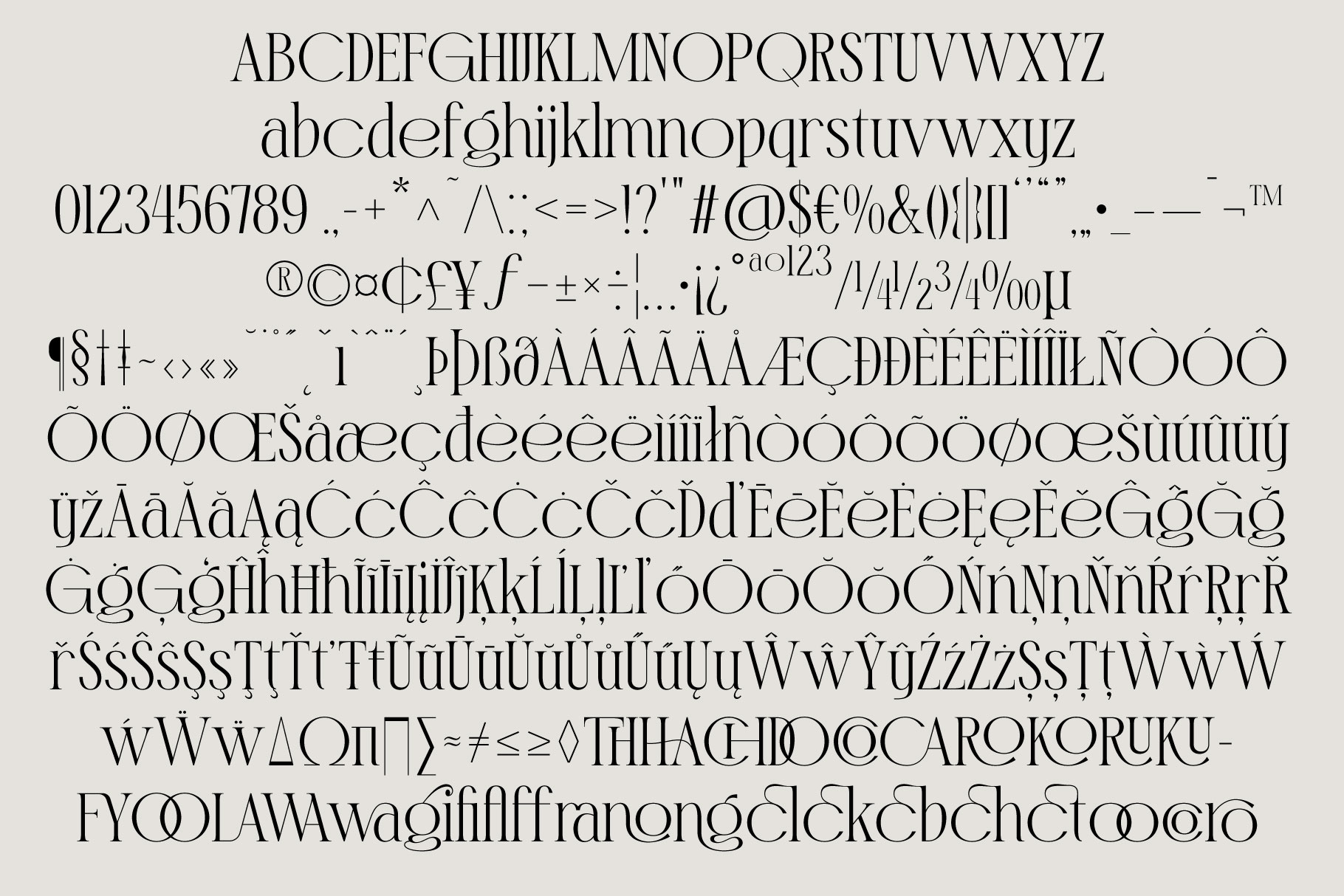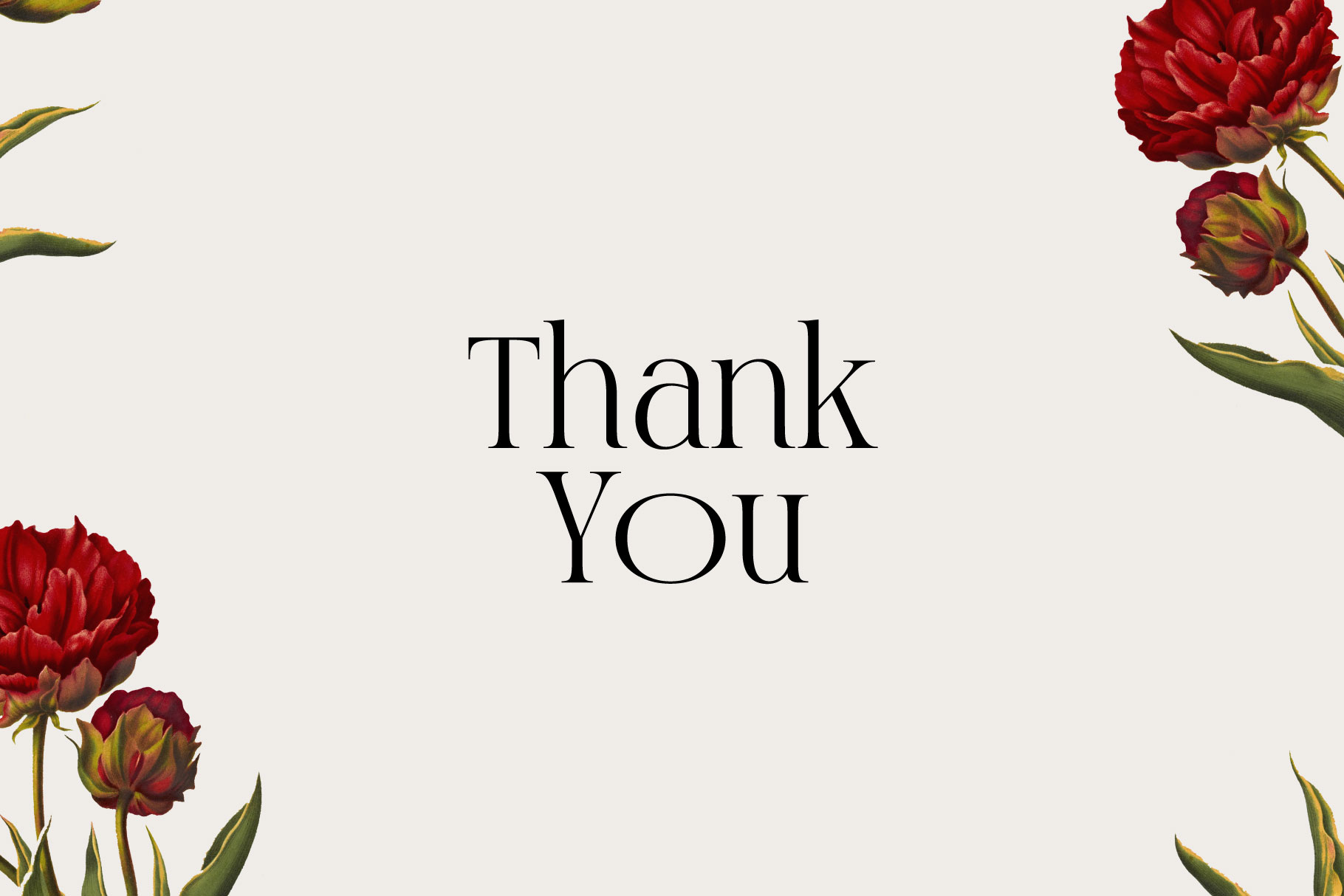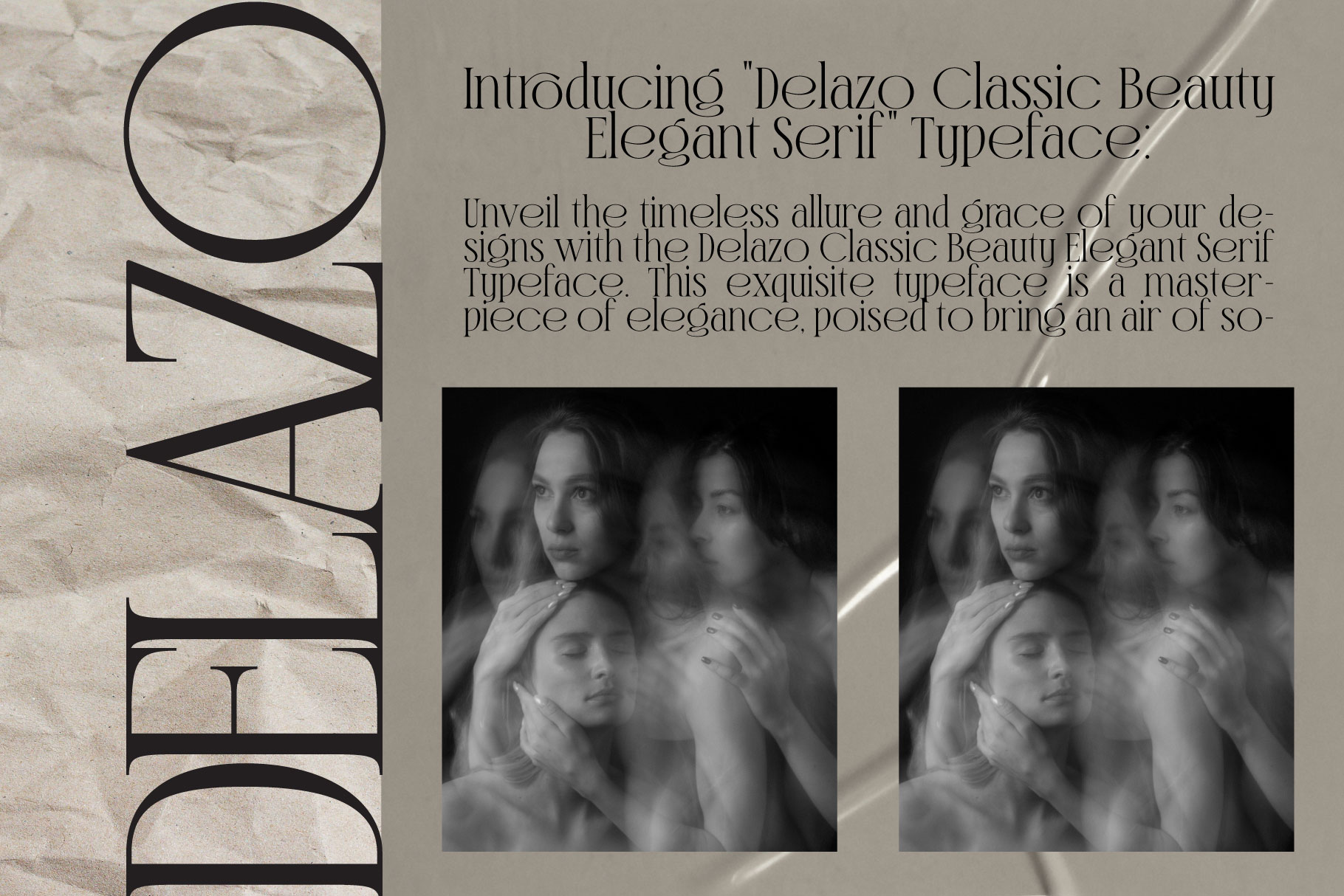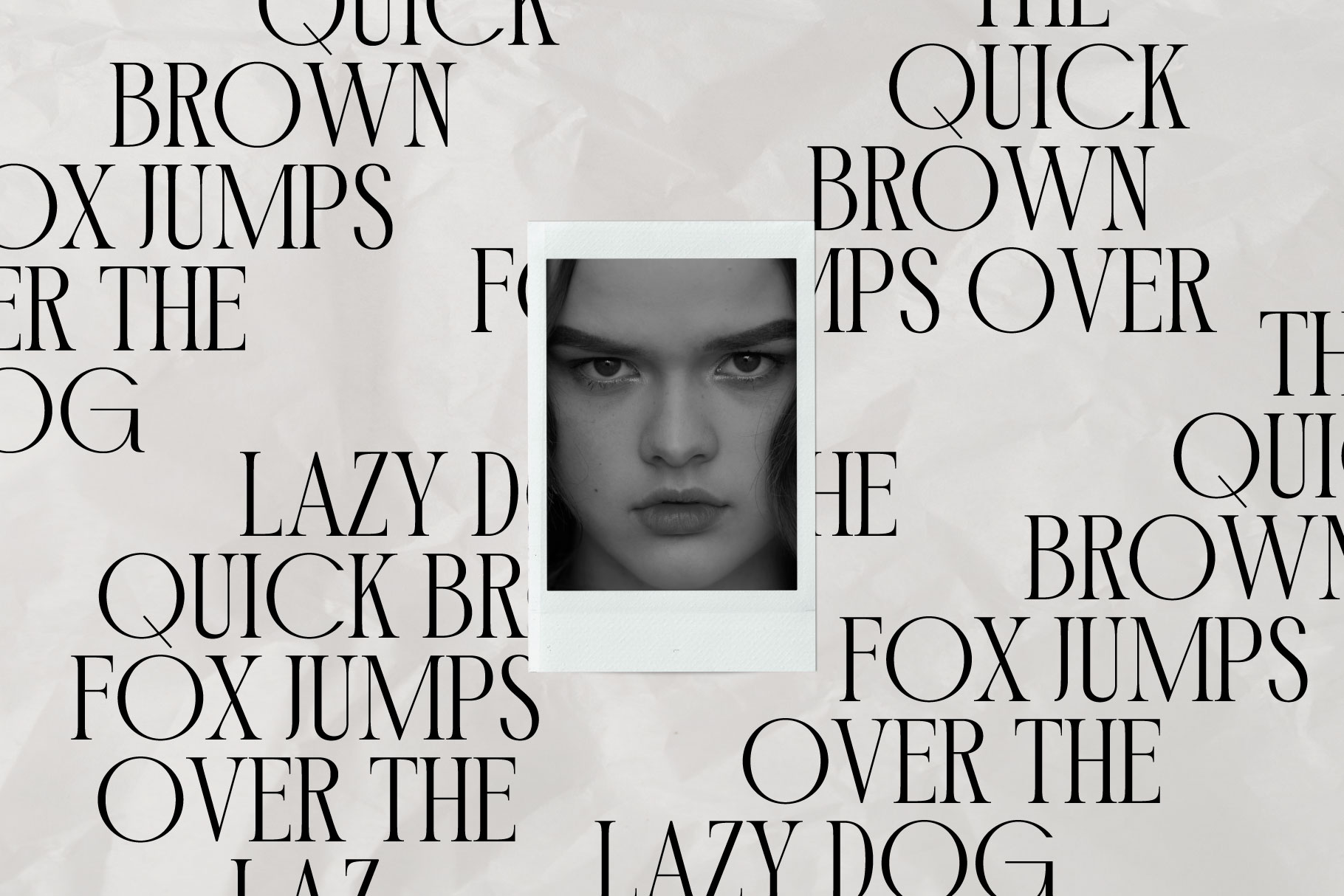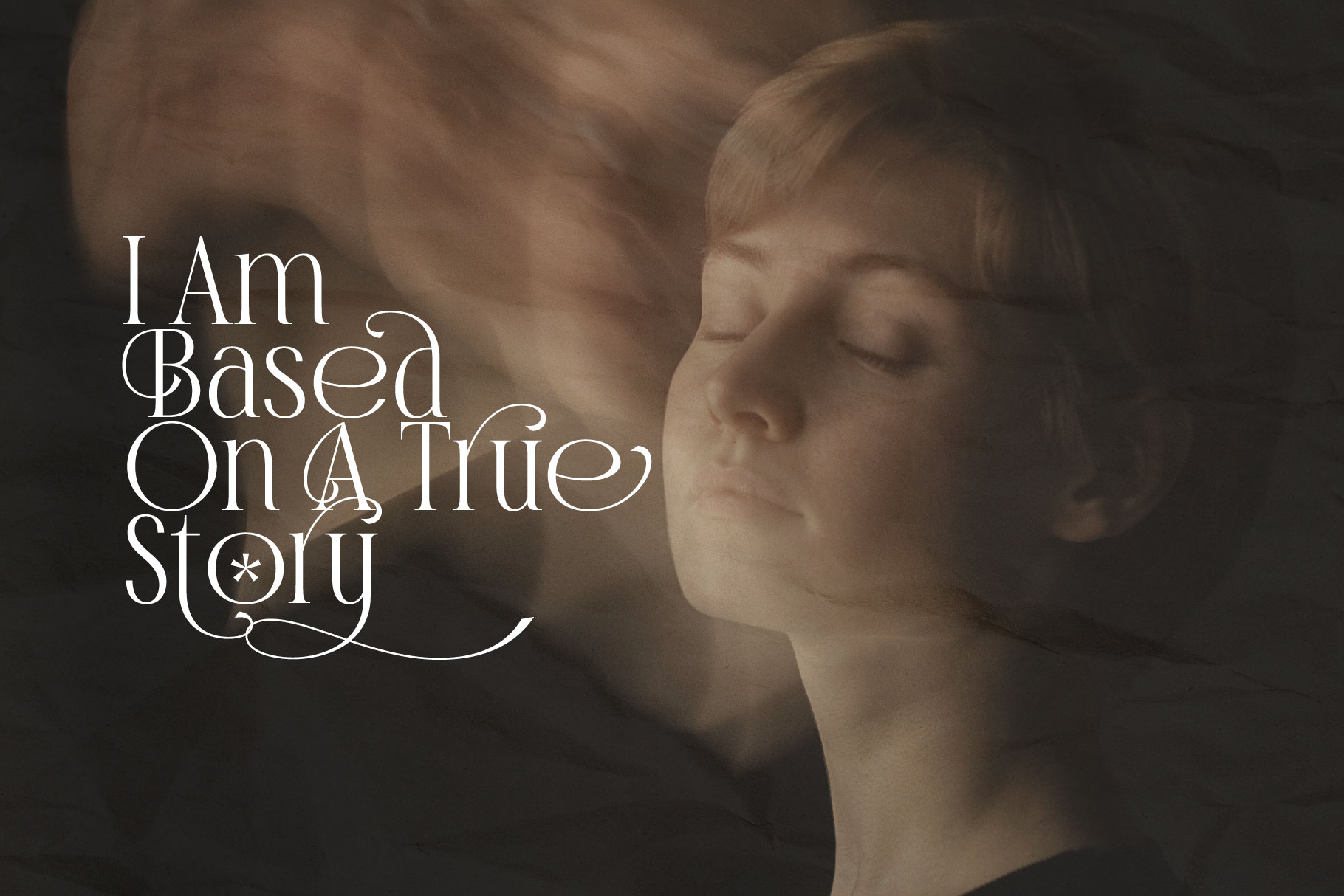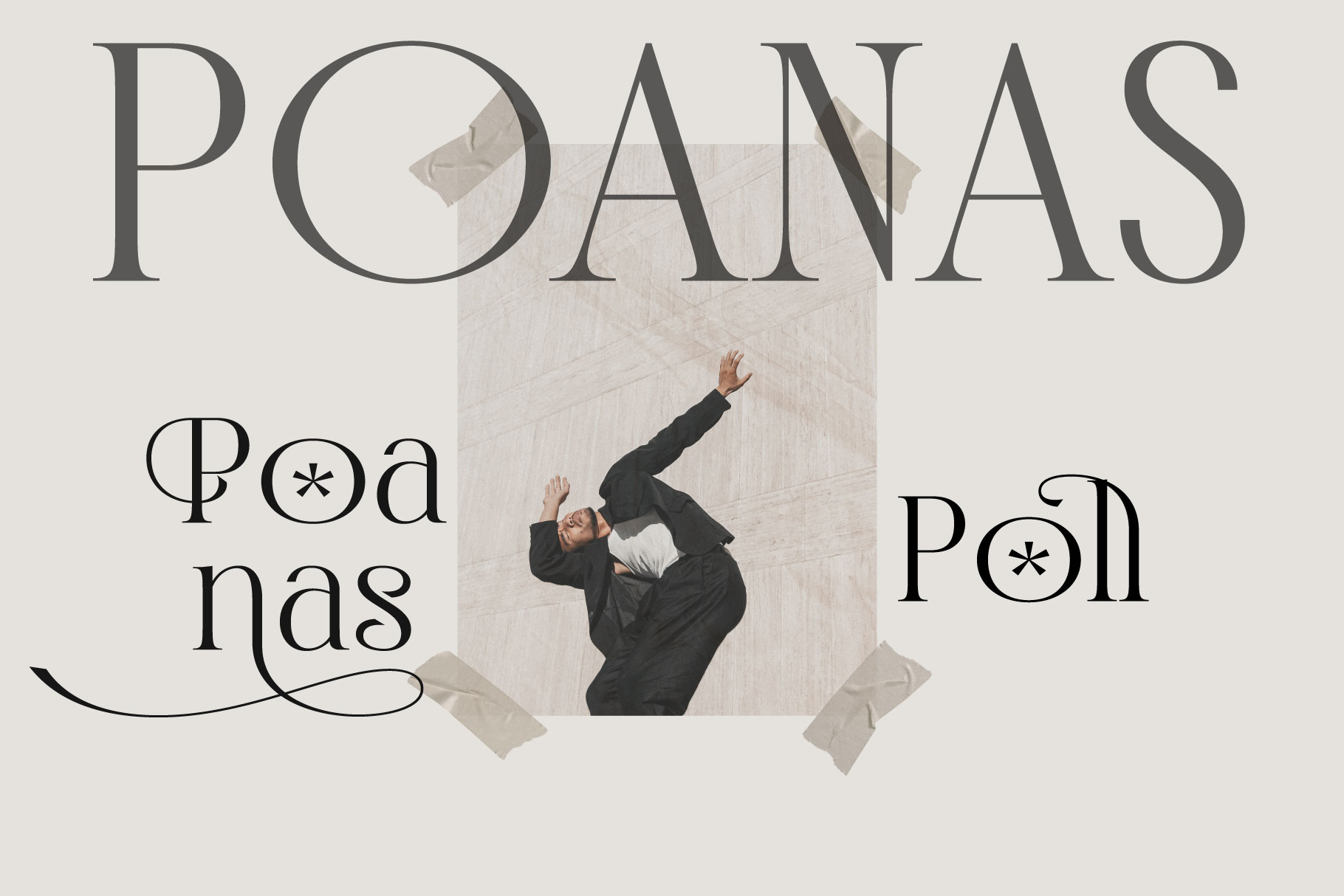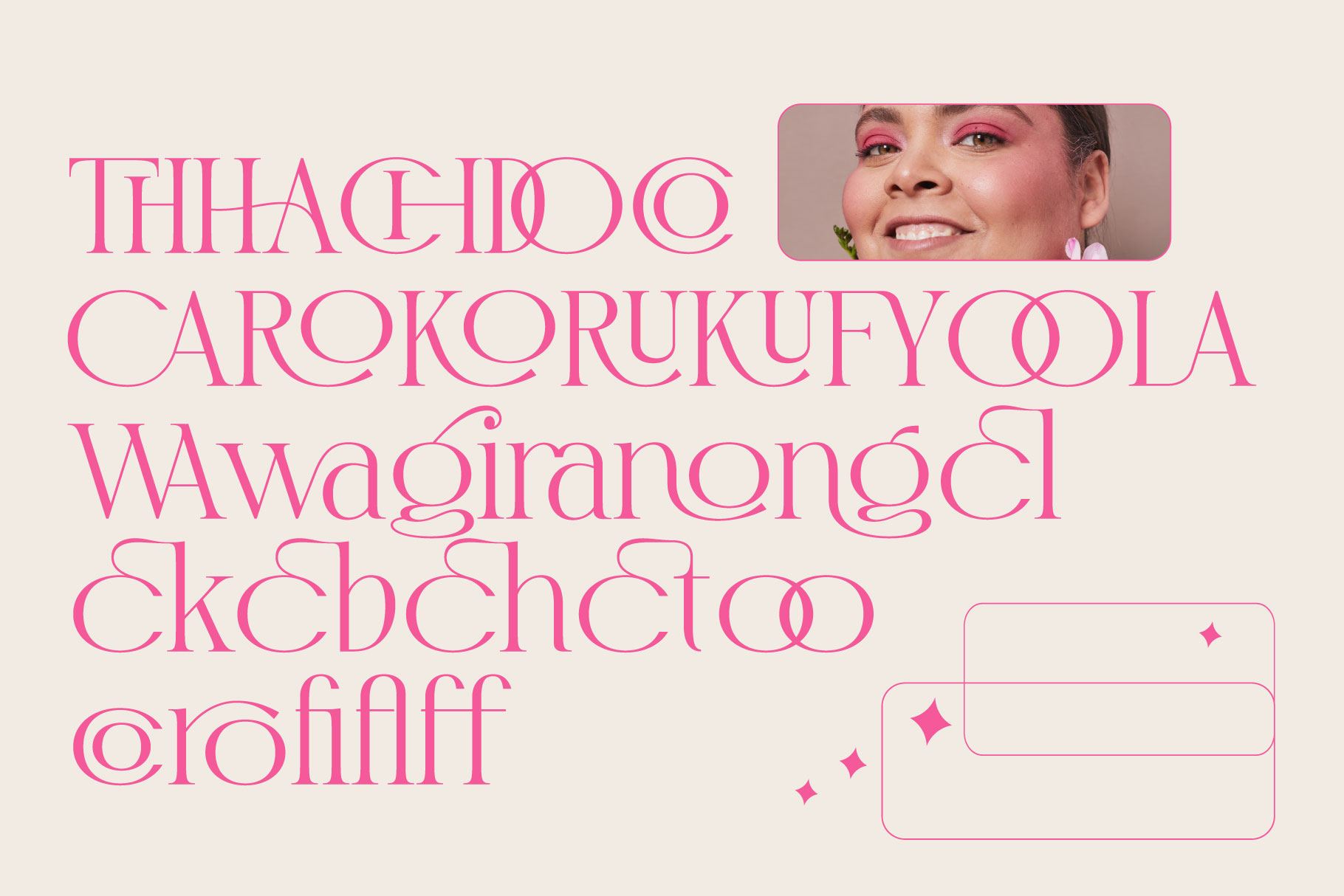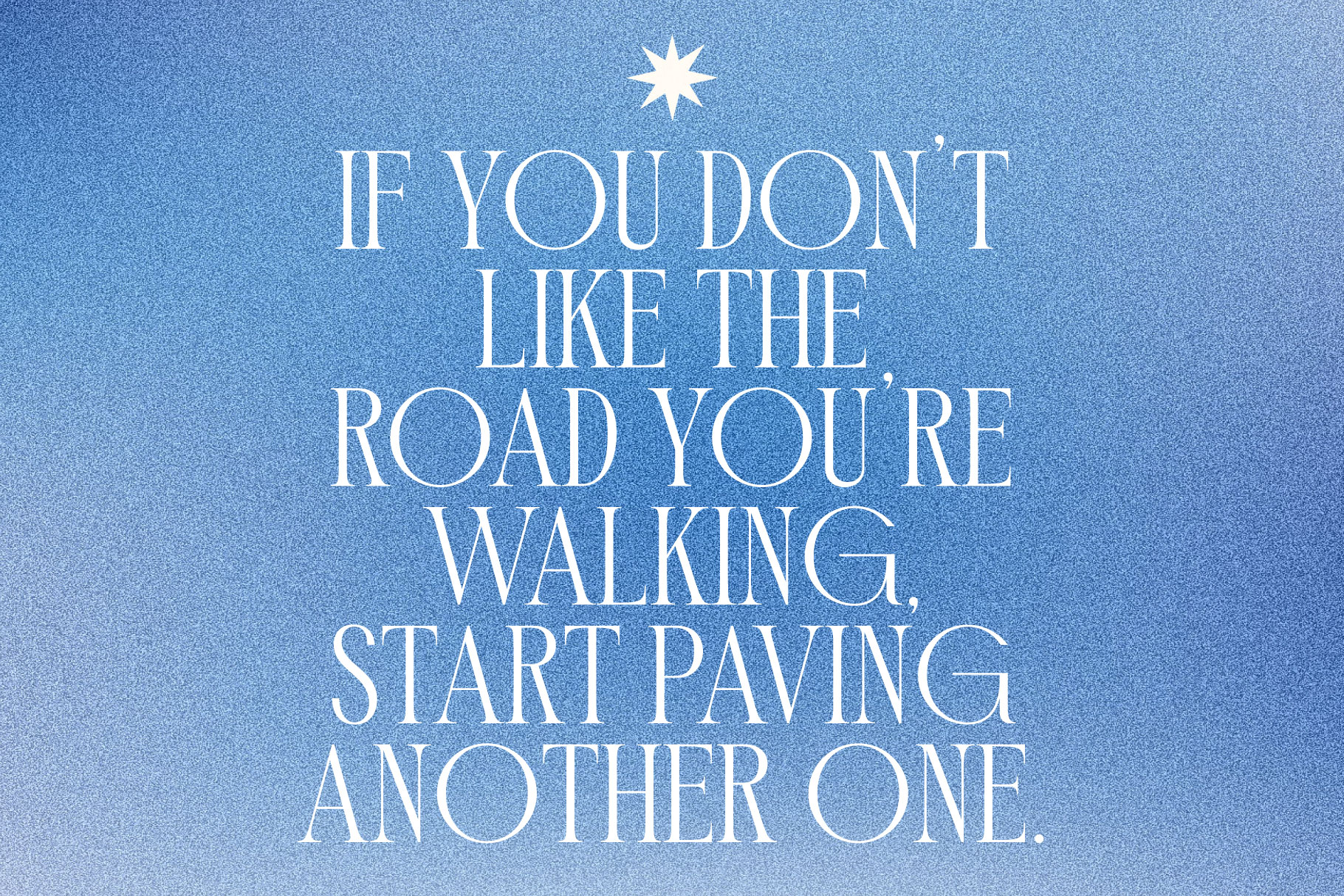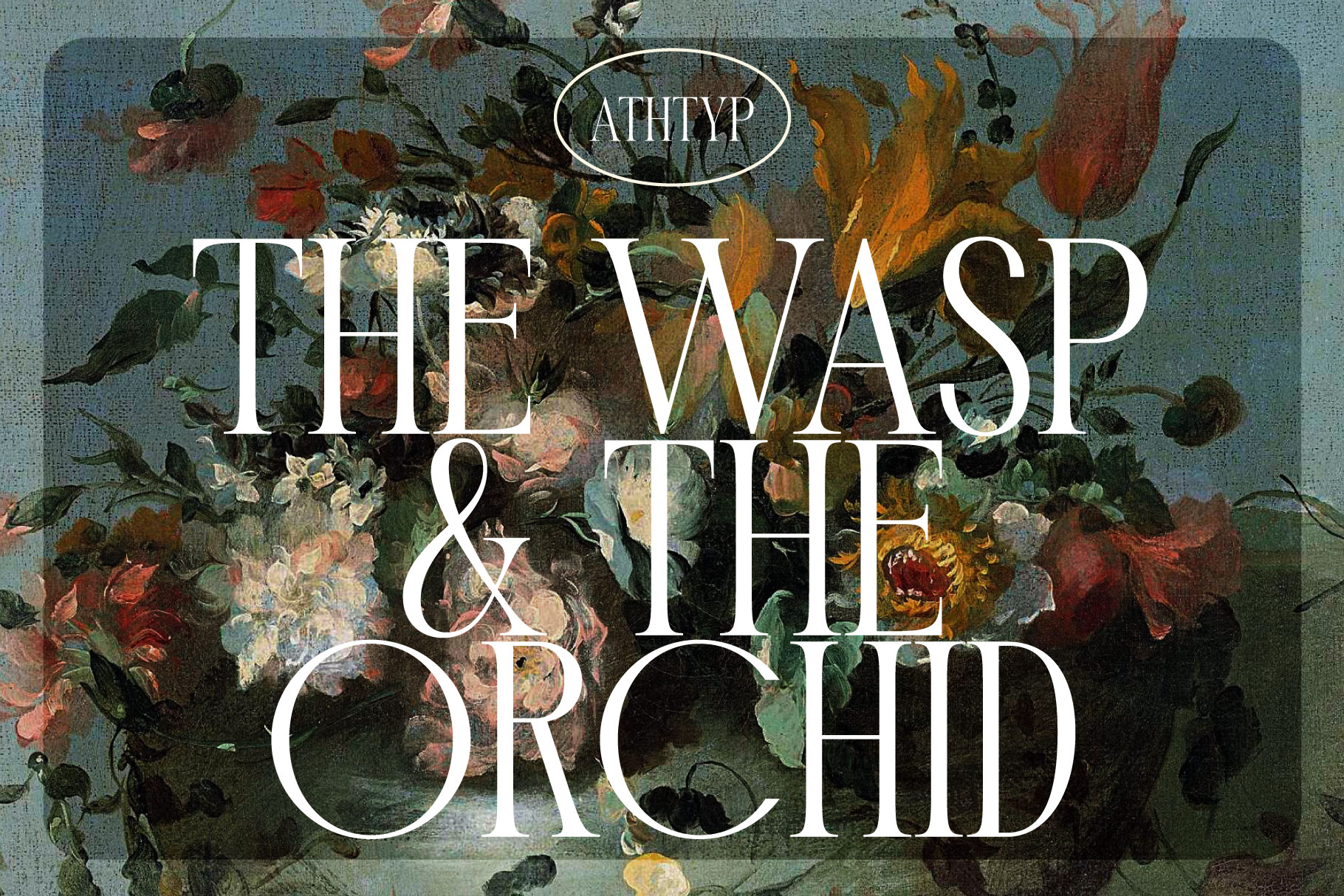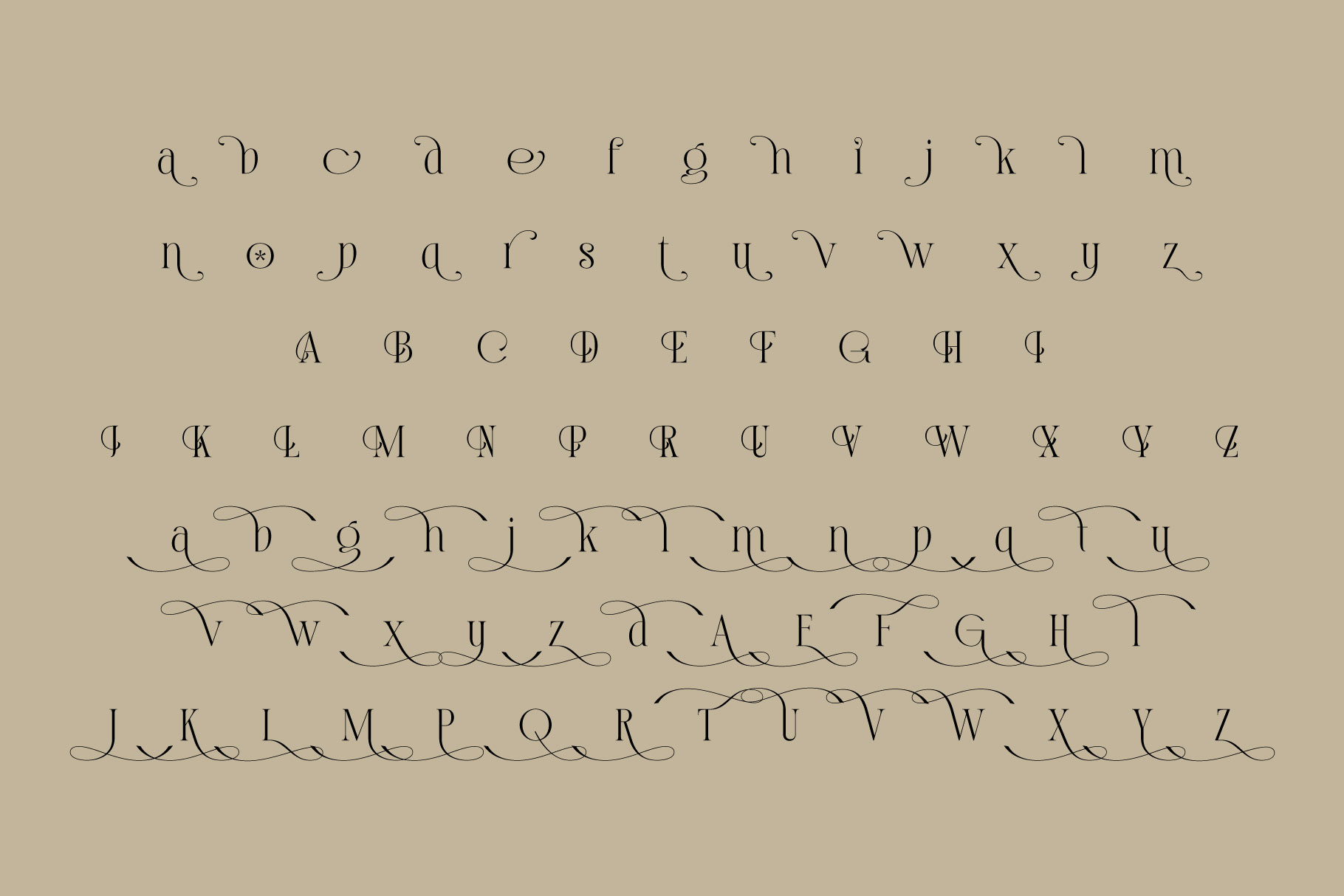
Delazo Classic Beauty Elegant Serif
Delazo
Introducing Delazo Classic Beauty Elegant Serif Typeface.
Unveil the timeless allure and grace of your designs with the Delazo Classic Beauty Elegant Serif Typeface. This exquisite typeface is a masterpiece of elegance, poised to bring an air of sophistication to your creative projects.
Key Features:
Timeless Beauty: Delazo Classic Beauty Elegant Serif Typeface exudes an ageless aesthetic, making it the ideal choice for a wide array of applications, from branding to editorial design, and more. It’s the epitome of timeless beauty in typography.
Elegant Serifs: The finely crafted serifs on each character exude a sense of refinement and tradition, making your text come alive with an air of class and professionalism.
Versatility at Its Best: This versatile typeface seamlessly adapts to both digital and print media. Whether for logos, headlines, body text, or any design element that requires a touch of elegance, Delazo Classic Beauty Elegant Serif excels.
Distinctive Character: Delazo Classic Beauty Elegant Serif Typeface introduces a unique and distinguished character font to your designs. It’s a typeface that encapsulates the essence of classic beauty.
Global Appeal: With extensive language support, your message can now transcend borders and connect with a diverse audience, allowing you to craft compelling narratives that resonate universally.
Elevate your designs to new heights of sophistication with Delazo Classic Beauty Elegant Serif Typeface. Its timeless beauty and graceful serifs will transform your projects, leaving an indelible mark on your audience. Perfect for luxury brands, wedding invitations, and any design where classic charm is paramount. Opt for Delazo Classic Beauty Elegant Serif Typeface, and let the allure of classic typography do the talking for you.